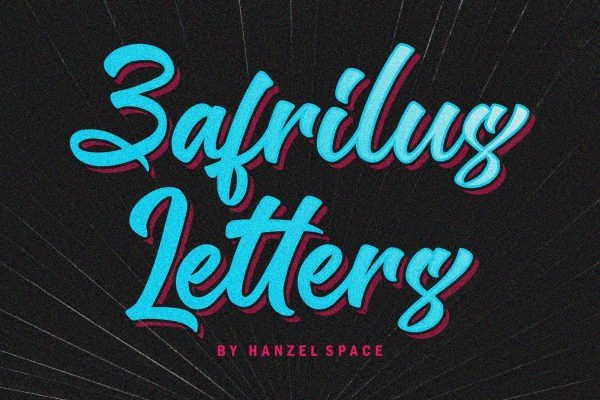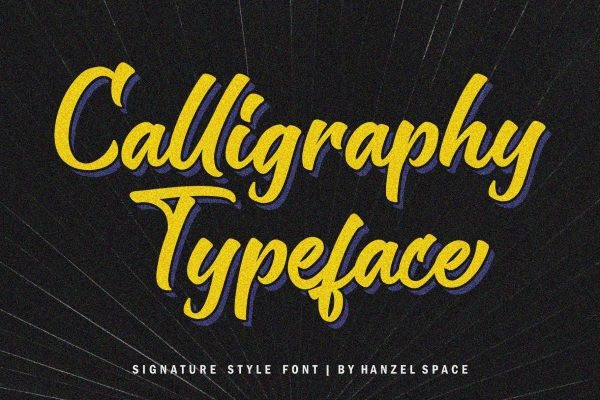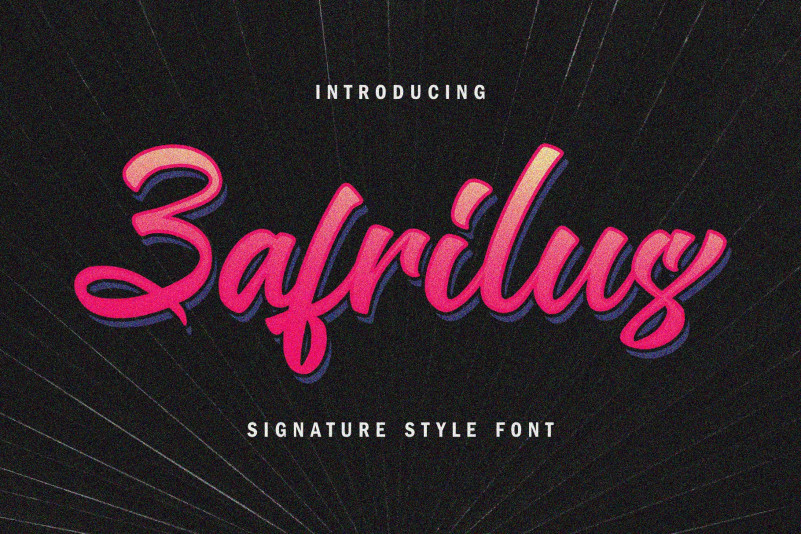
Zafrilus Script Font
Zafrilus | Signature Style Font Inspired by Modern Vintage & Retro style.
Zafrilus allowing you to create hand lettering is an instant and a super handy set of bonus Swash. Ideal for logos, handwritten quotes, product packaging, header, poster, merchandise, social media & greeting cards.